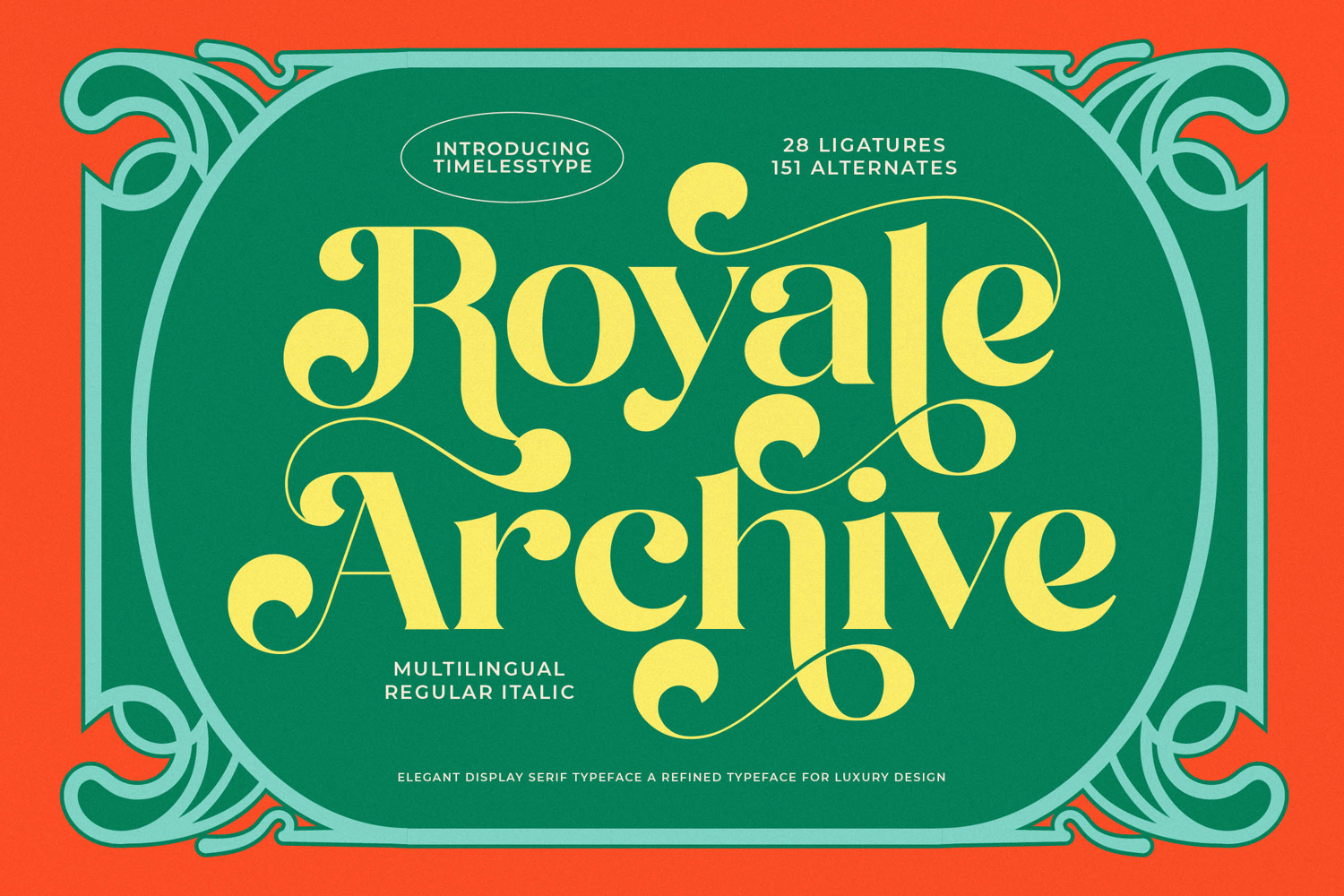
Royale Archive - Elegant Display Serif
Elevate your design projects with the unparalleled sophistication of Royale Archive - Elegant Display Serif. This exquisite display serif typeface masterfully blends historical elegance with contemporary flair, creating a truly distinctive visual voice. Its bold, flowing forms and refined proportions command attention, delivering a sense of luxury and timelessness that resonates with discerning audiences. Perfect for creating an instant impression of heritage and class.
Unlock a world of typographic creativity with Royale Archive - Elegant Display Serif. Boasting an impressive collection of 28 ligatures and 151 alternates, this font offers boundless opportunities for unique character combinations and custom flourishes. The intricate details and high-contrast strokes ensure remarkable legibility and visual impact, allowing designers to craft truly bespoke headlines, logotypes, and artistic statements that stand apart.